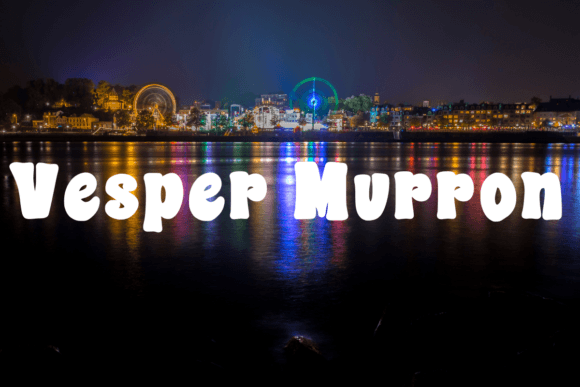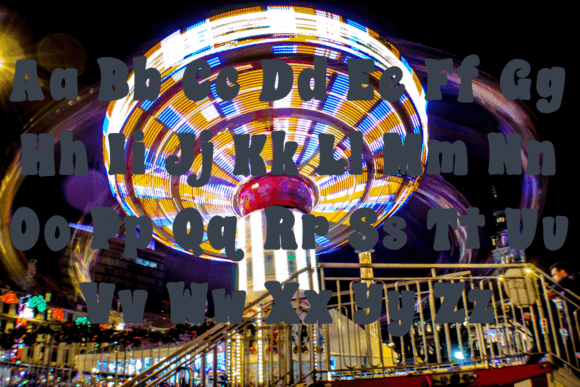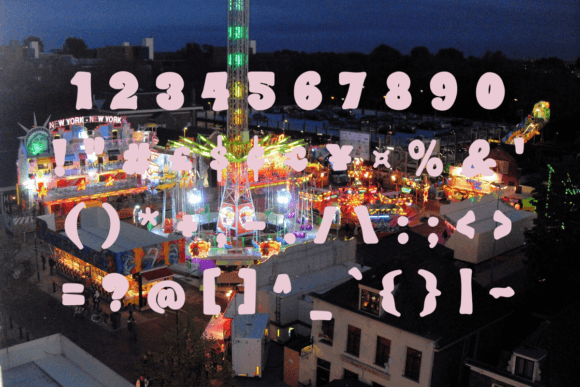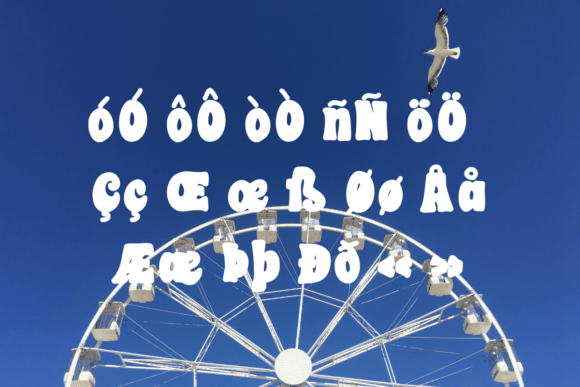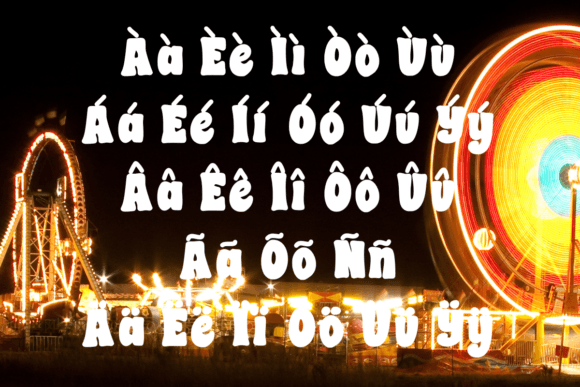
Introducing Vesper Murron! This is a funky, chunky, bold Slab Serif font. Would look great on posters or flyers as well as any social media posts. The possibilities are endless!